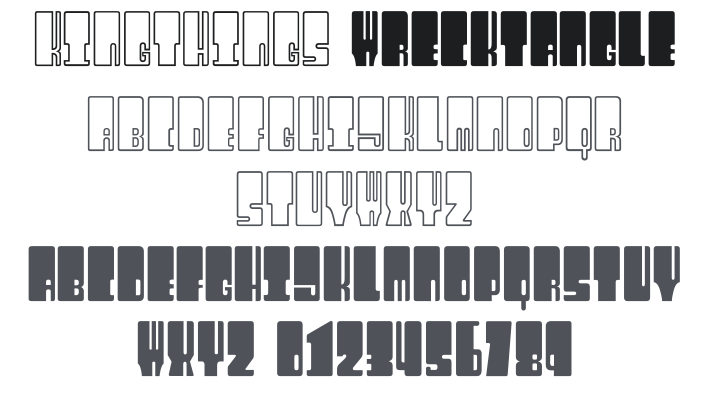
Kingthings Wrecktangle Font
About Kingthings Wrecktangle
I bought a book about cutting edge audio from the 70's - after I stopped laughing, I made this font. It's a bit like the one used on the book cover. It makes me smile as no-one can read it and my college tutors would shudder... it's odd how things stick.